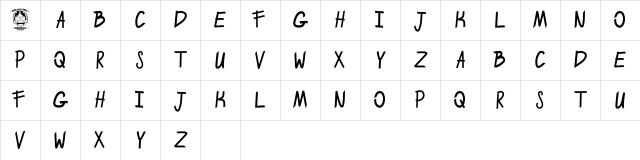
ENJOY BOY Regular
ENJOY BOY Regular Font Preview
Design Context for ENJOY BOY
ENJOY BOY is a composed and adaptable typeface that performs quietly and consistently across a wide range of design contexts.
Pro Tip: Use ENJOY BOY in both headline and body roles to test its range before committing to a single application.